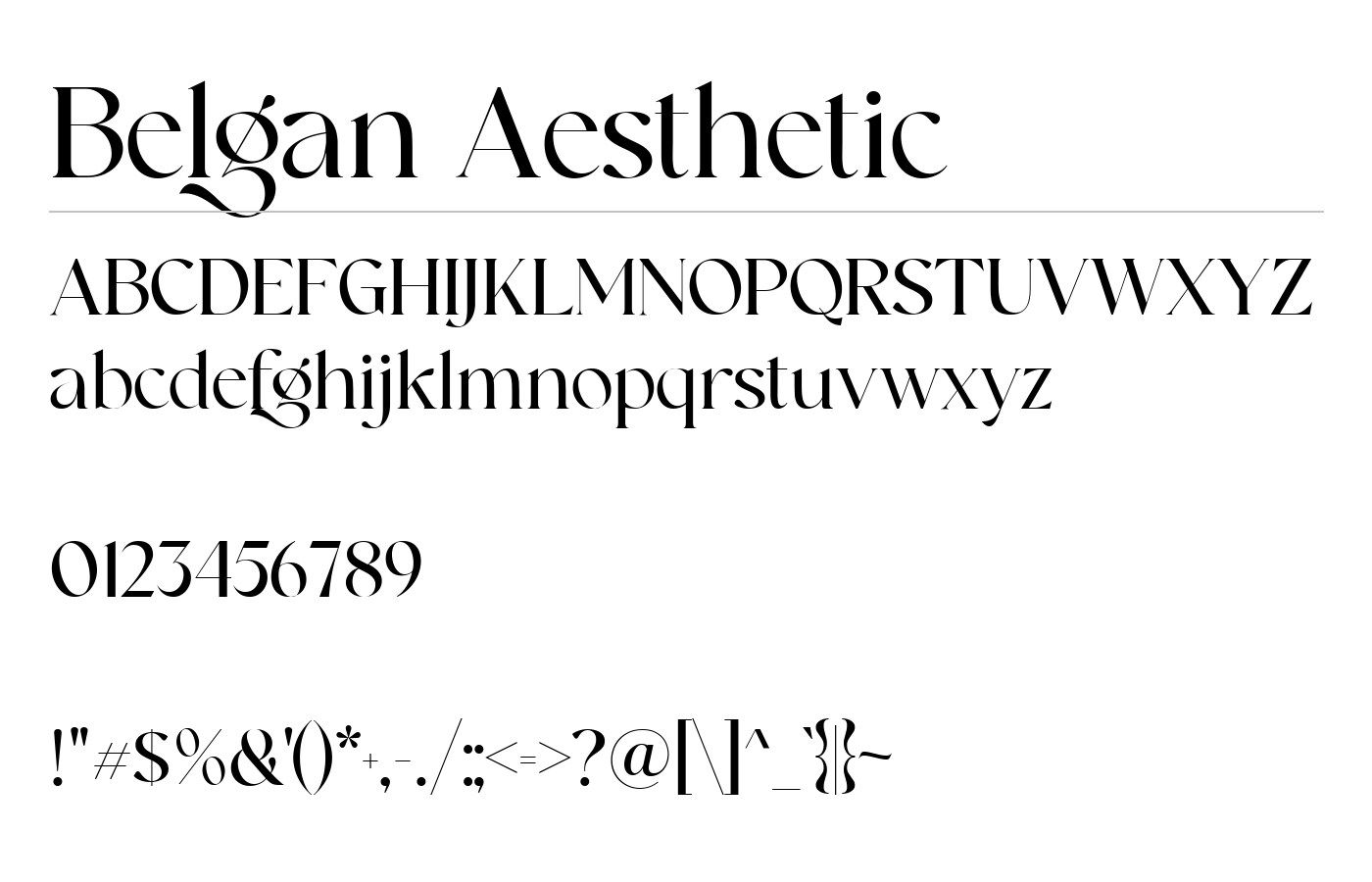
Belgan Aesthetic is a refined serif font that combines high contrast strokes with elegant, sharp serifs and unique stylistic details, giving it a sophisticated and artistic feel. Its medium weight and balanced proportions make it ideal for luxury branding, editorial headlines, and fashion-focused designs where a modern yet classic aesthetic is desired. This font's distinctive letterforms and graceful curves add a touch of creativity while maintaining readability and elegance.
Belgan Aesthetic Font
About Belgan Aesthetic Font
| Font family | Belgan Aesthetic Font |